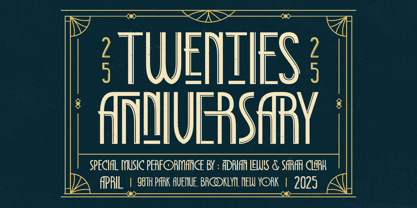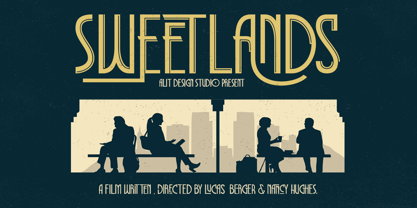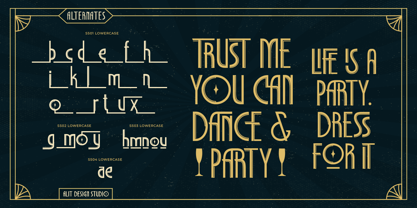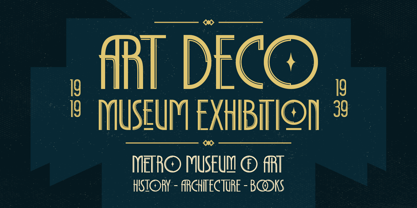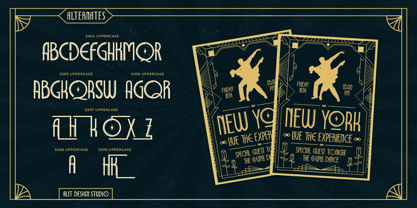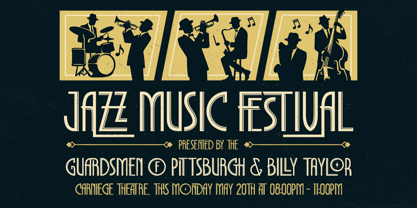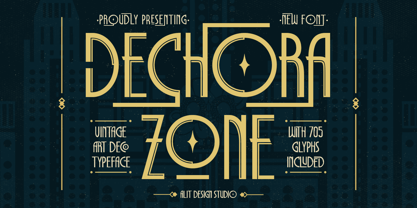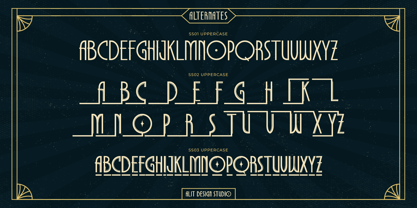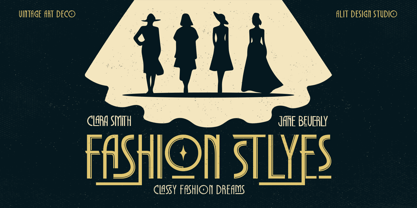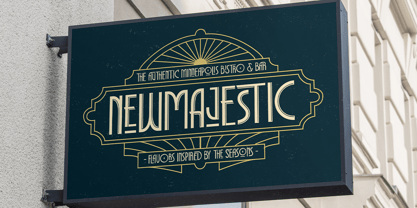
Dechora Zone
The Dechora Zone Font Family was designed by Alit Suarnegara and published by Alit Design. Dechora Zone contains 1 styles. More about this family
Dechora Zone Typeface
Elevate your designs with Dechora Zone Typeface, a bold reimagining of Art Deco elegance. This typeface captures the iconic aesthetic of the Art Deco era, but with a modern twist—dynamic, flowing lines blend vintage charm with contemporary sophistication, making it truly one of a kind.
Whether you're designing for luxury branding, editorial layouts, event invitations, or packaging, Dechora Zone adds a touch of opulence and creativity that stands out in any project.
Font Features
• 705 Characters: An expansive character set for maximum versatility.
• Alternates: Multiple stylistic options to customize your typography.
• Ligatures: Beautifully crafted letter combinations for seamless design flow.
• Swashes: Elegant, decorative flourishes to enhance your compositions.
• Multilingual Support: Comprehensive language coverage ensures your message is universal.
Let Dechora Zone Typeface redefine your approach to Art Deco-inspired design, combining historical allure with a contemporary edge. Perfect for creating a bold statement with timeless sophistication.
Unleash your creativity with Dechora Zone—where vintage elegance meets modern artistry.